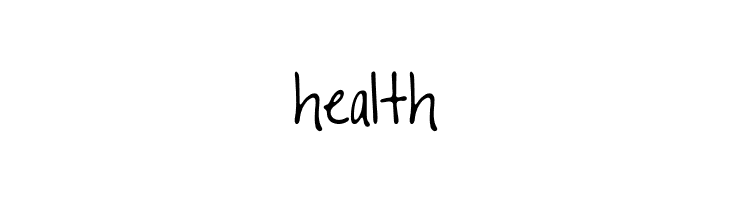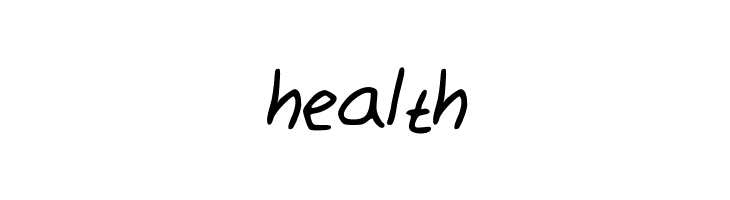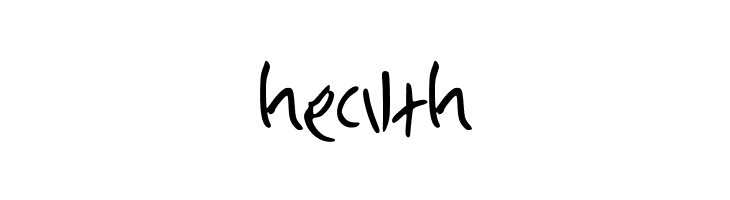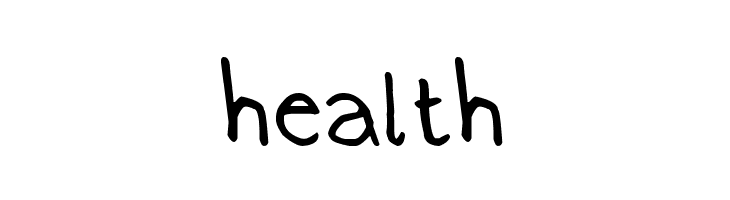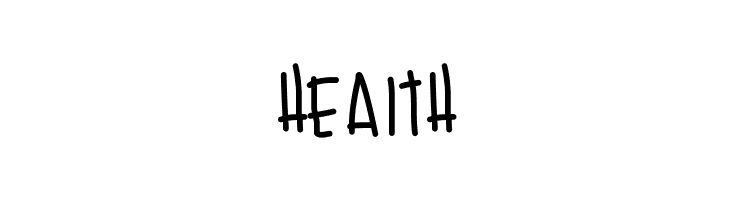
A playful, handwritten font with rounded, consistent letterforms.
A playful, hand-drawn font with a crayon-like, whimsical style.
A playful, casual handwritten font with irregular strokes.
A playful, handwritten font with a comic-like, informal style.
A playful, eclectic font with a mix of handwritten and decorative elements.
A playful, hand-drawn font with a casual and whimsical style.
A thin, playful handwritten font with smooth, elongated letterforms.
A playful, handwritten font with a casual and dynamic style.
A playful, casual handwritten font with smooth, flowing curves and medium contrast.